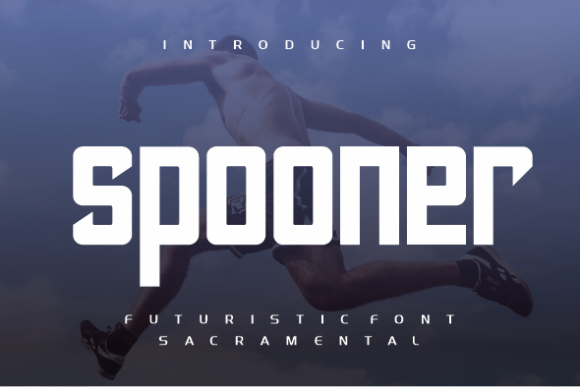
Spooner Font: The Gateway to Unique Branding
Spooner Font, a creative display font, is your gateway to creating unique and captivating branding projects. Its bold, minimalistic, and warm personality will elevate your brand's identity, leaving a lasting impression on your audience.
With Spooner Font, create captivating logos that will stand out and make your brand memorable. Its versatility extends to headlines and captions, adding a quirky yet elegant touch to your marketing materials.
Spooner Font: Designed to Capture Hearts
Spooner Font's unique letterforms dance across the screen, weaving a web of visual intrigue. Its clean lines and modern design create a sense of sophistication that will capture the hearts of your target audience.
This display font demands attention, making it the perfect choice for creating social media graphics, website headers, and eye-catching advertisements. Watch as your brand's image transforms and your online presence skyrockets.
Spooner Font: Your Secret Ingredient for Visual Impact
Unlock the endless possibilities of Spooner Font and elevate your branding strategy. Embrace its versatile nature and witness the transformation of your visual identity. From sleek and sophisticated to warm and inviting, Spooner Font adapts effortlessly to match your brand's personality.
Visual impact is the key to leaving a lasting impression, and Spooner Font delivers. Unleash your creativity and infuse your brand with a touch of uniqueness that will have your audience talking. Don't just blend in; stand out with Spooner Font.